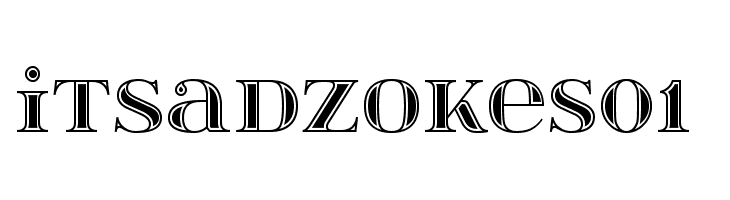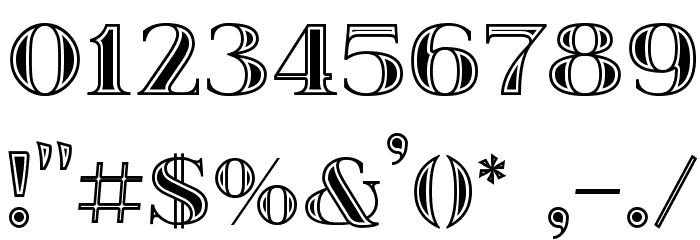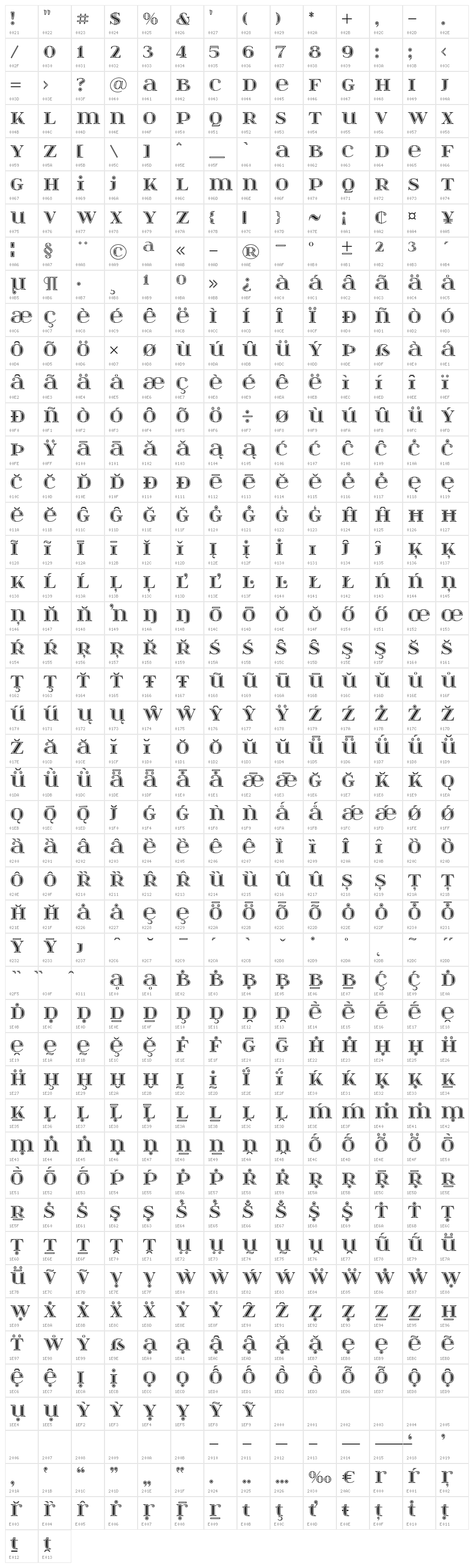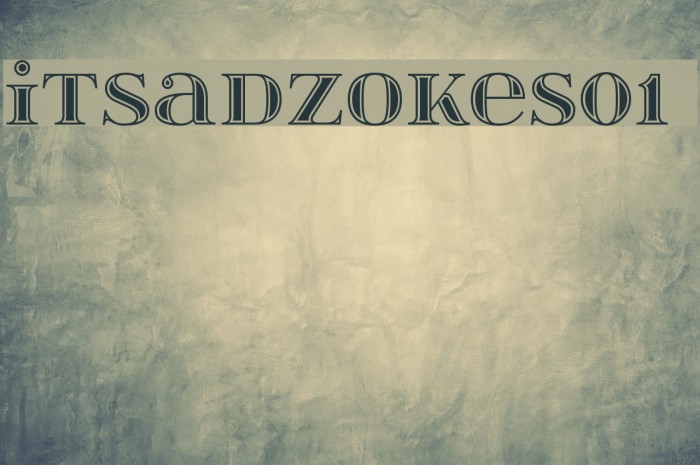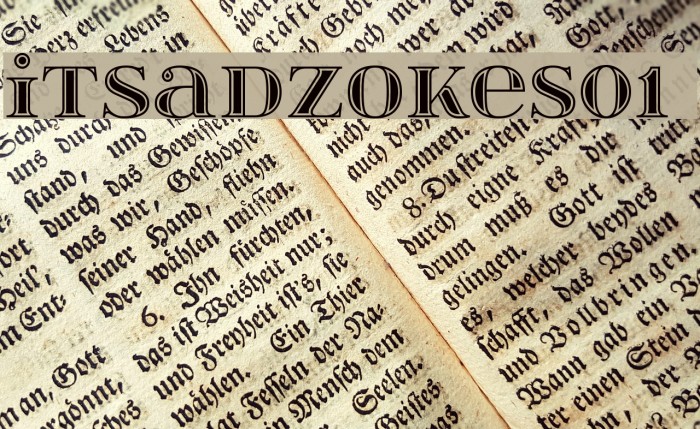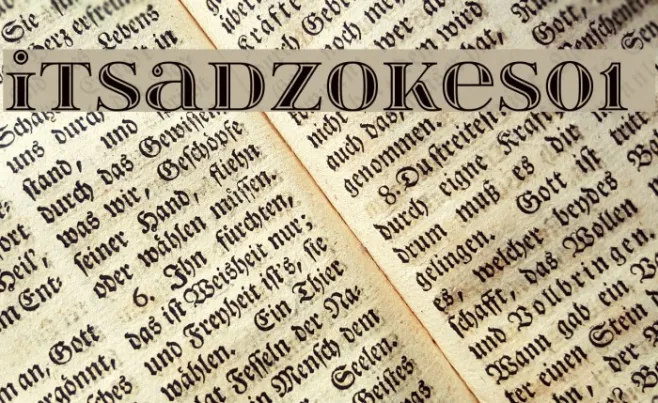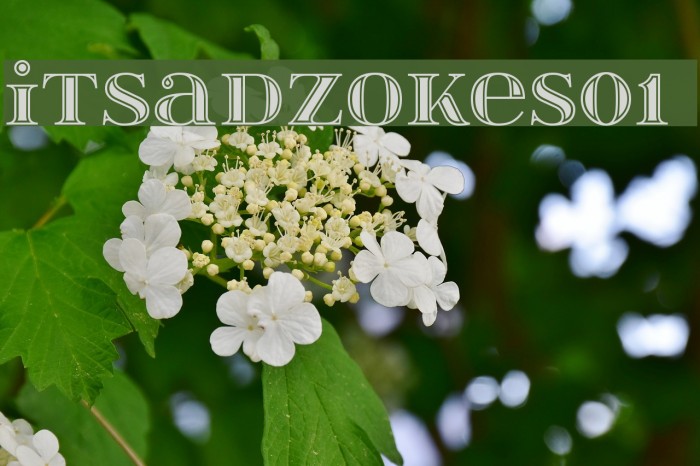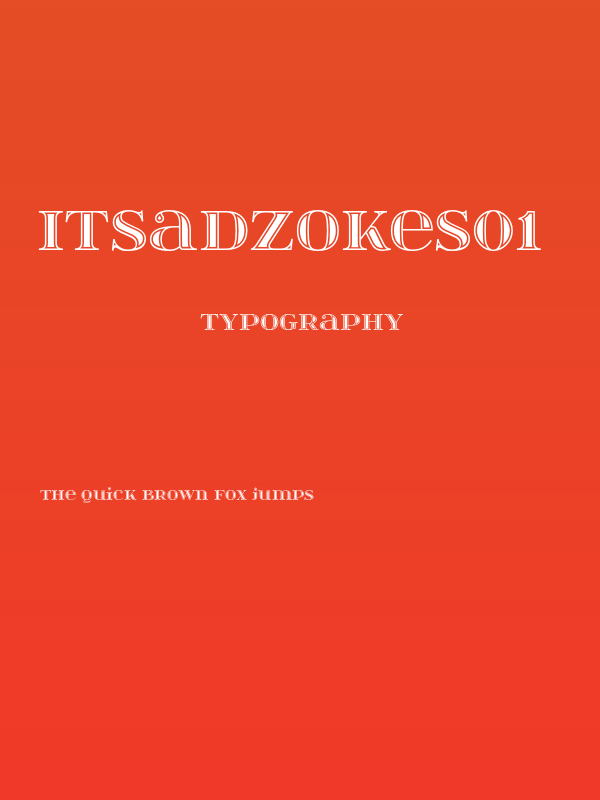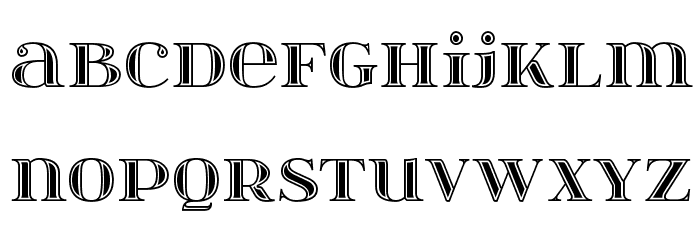
itsadzokeS01 Font
itsadzokeS01 Description
This font features a bold and decorative style with a distinct vintage flair. Each character is outlined with a double line, creating a shadow effect that adds depth and dimension. The uppercase and lowercase letters maintain a consistent design, with rounded edges and a slightly condensed form. The numerals and special characters follow the same aesthetic, ensuring uniformity across all glyphs. The overall appearance is both striking and elegant, making it suitable for projects that require a touch of sophistication and nostalgia.
| Proposed Projects | Ideal for vintage-themed posters, branding, packaging, and editorial design. |